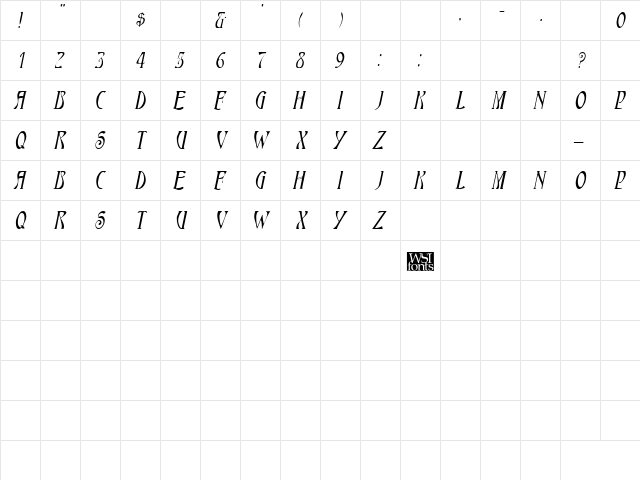
HardinCaps Italic
Design Context for HardinCaps Typeface
HardinCaps is a composed and adaptable typeface that performs quietly and consistently across a wide range of design contexts. The dynamic lean of this cut emphasises speed and emphasis in any layout.
Pro Tip: Use HardinCaps for emphasis, pull quotes, and subheadings where its slanted energy can add rhythm to the layout.